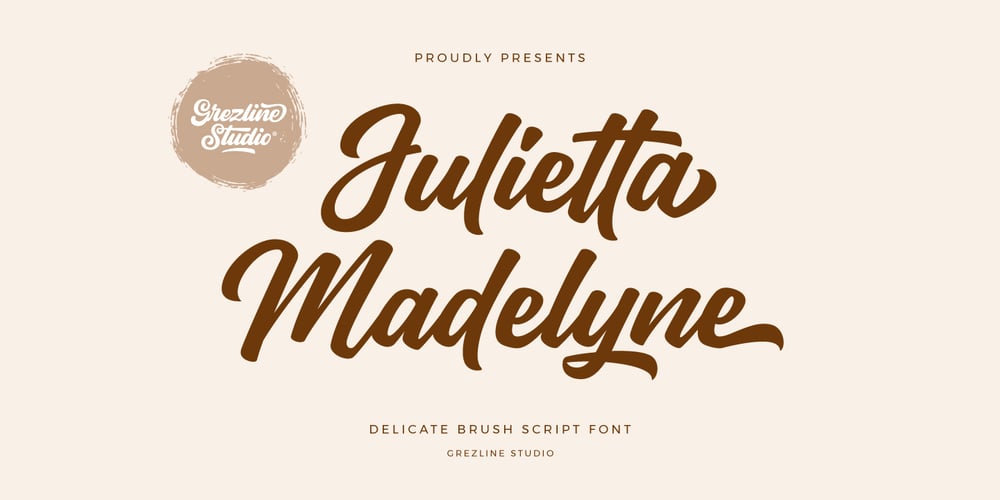
Julietta Madelyne
Julietta Madelyne font
Julietta Madelyne Font Family was designed by Akhmad Reza Fauzi and published by Grezline Studio. Julietta Madelyne contains 1 styles and family package options. Julietta Madelyne is a delicate brush script font. You can use this font in a wide range of works such as logos, covers, posters, quotes, product packaging, merchandise, social media and much more! This font is already PUA encoded so you can access the alternate glyph very easily.Feature : Alternate Glyphs Multilingual Language Works on PC & Mac Simple installations Accessible in the Adobe Illustrator, Adobe Photoshop, Adobe InDesign, even works on Microsoft Word. Thank you for your support.